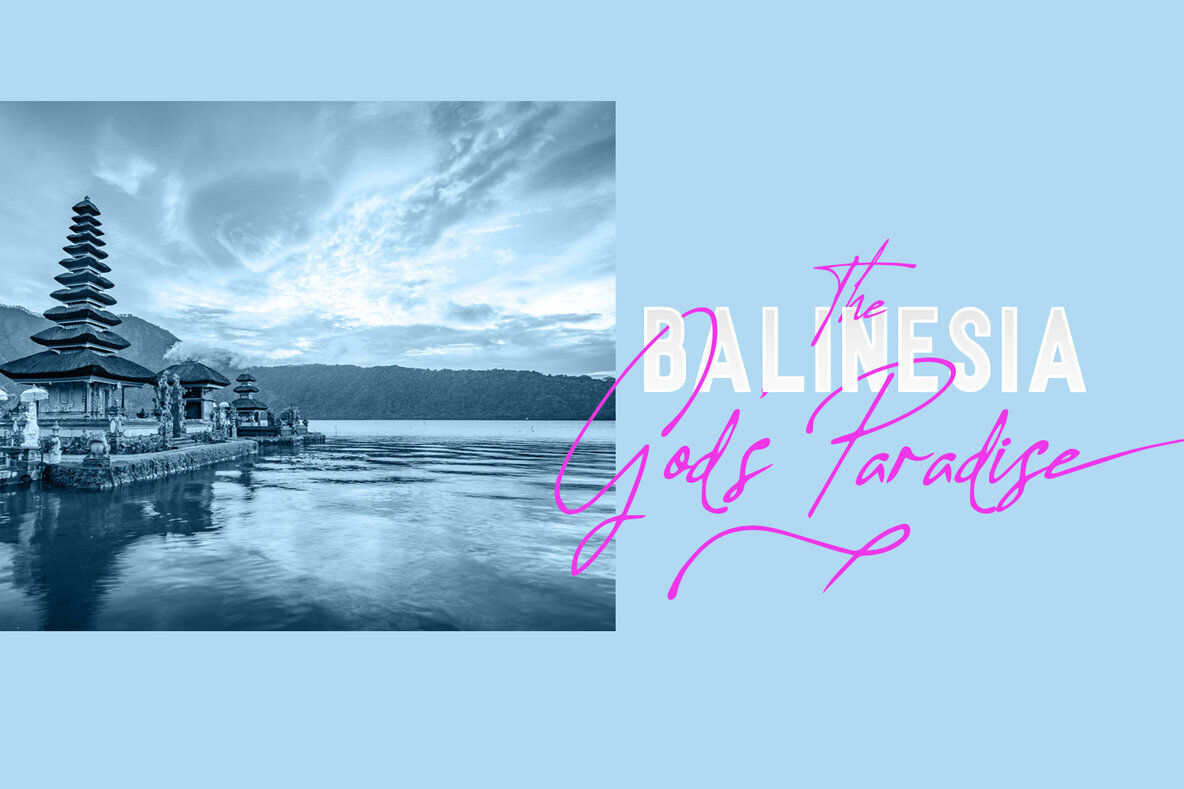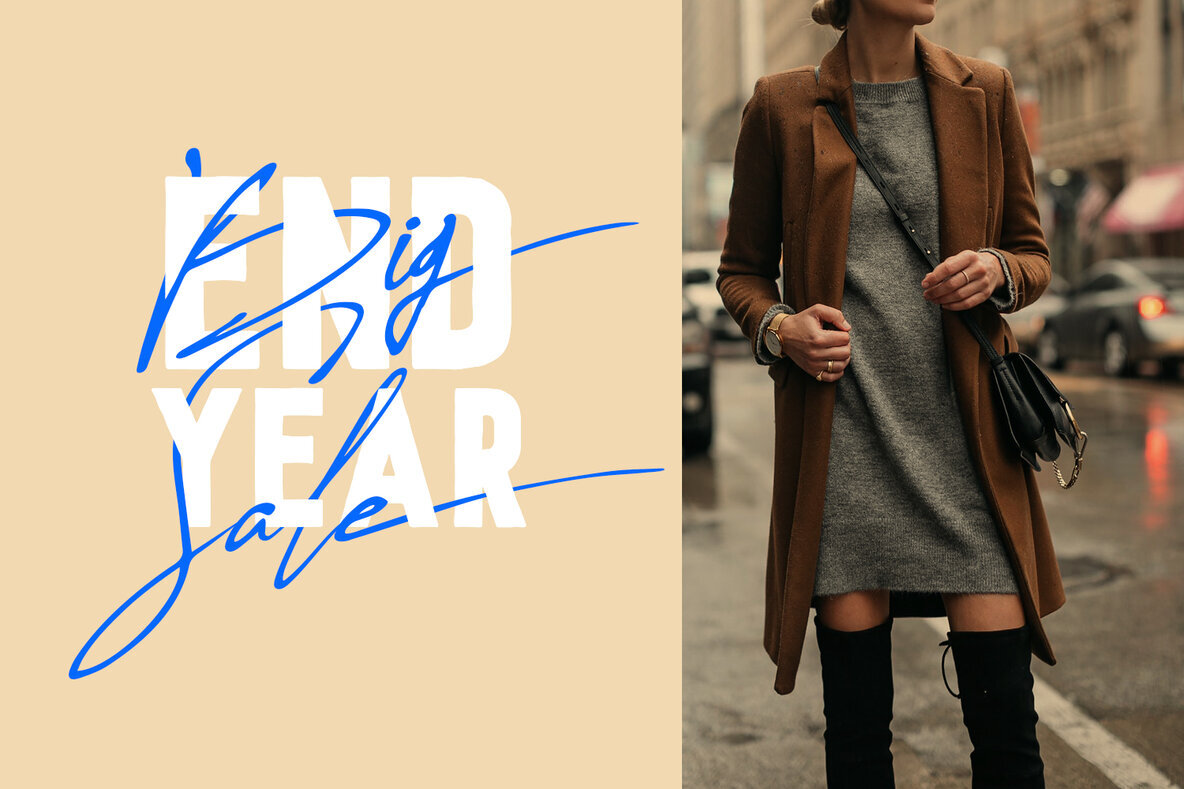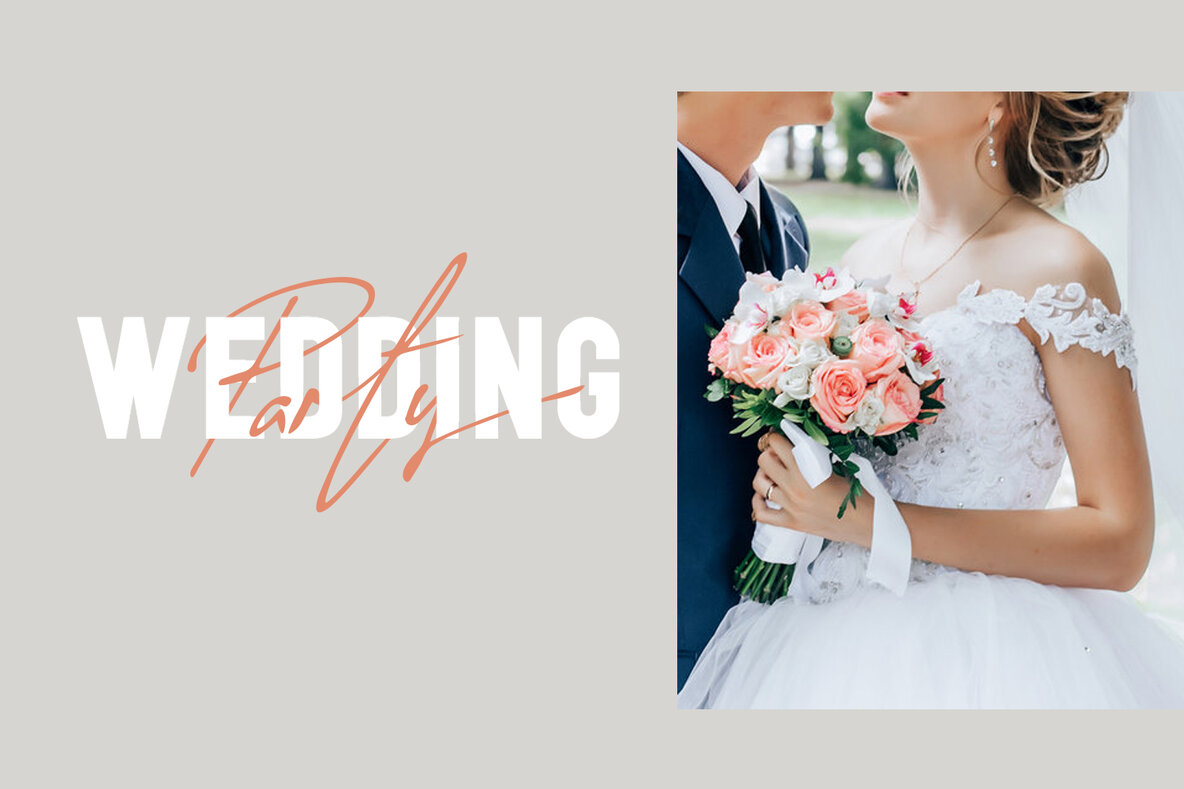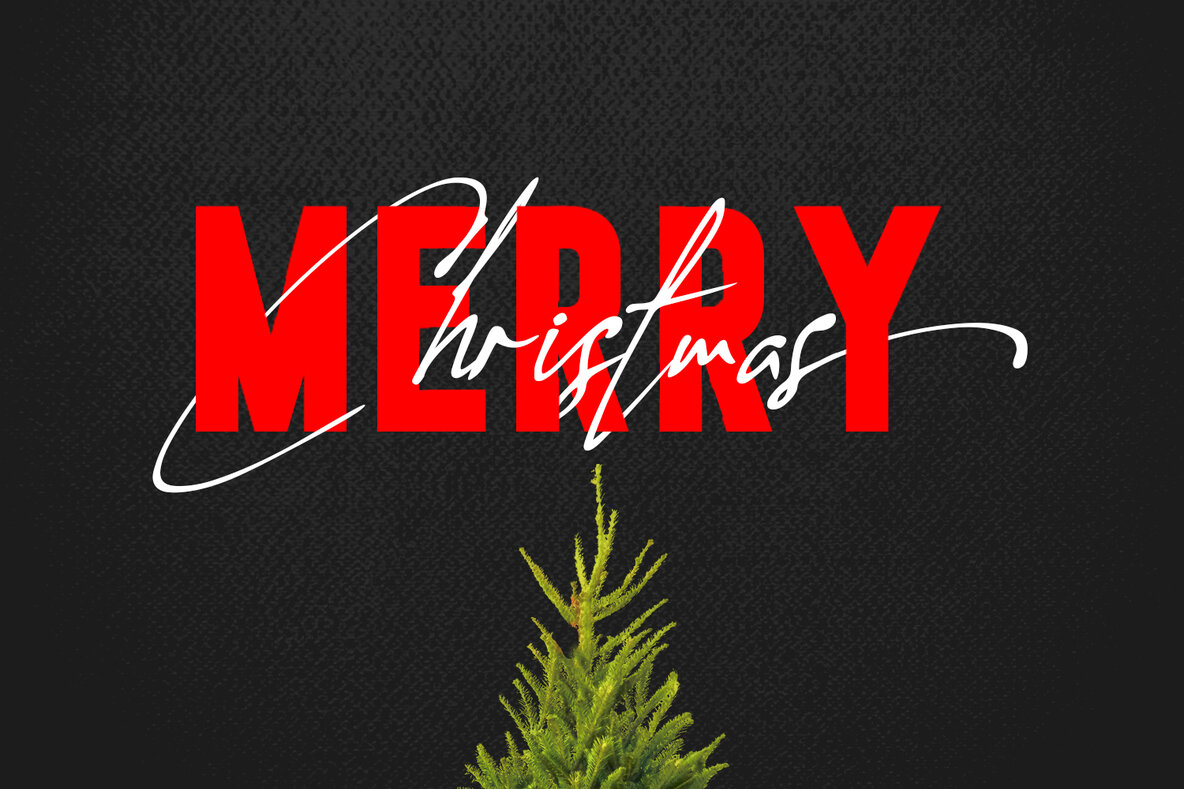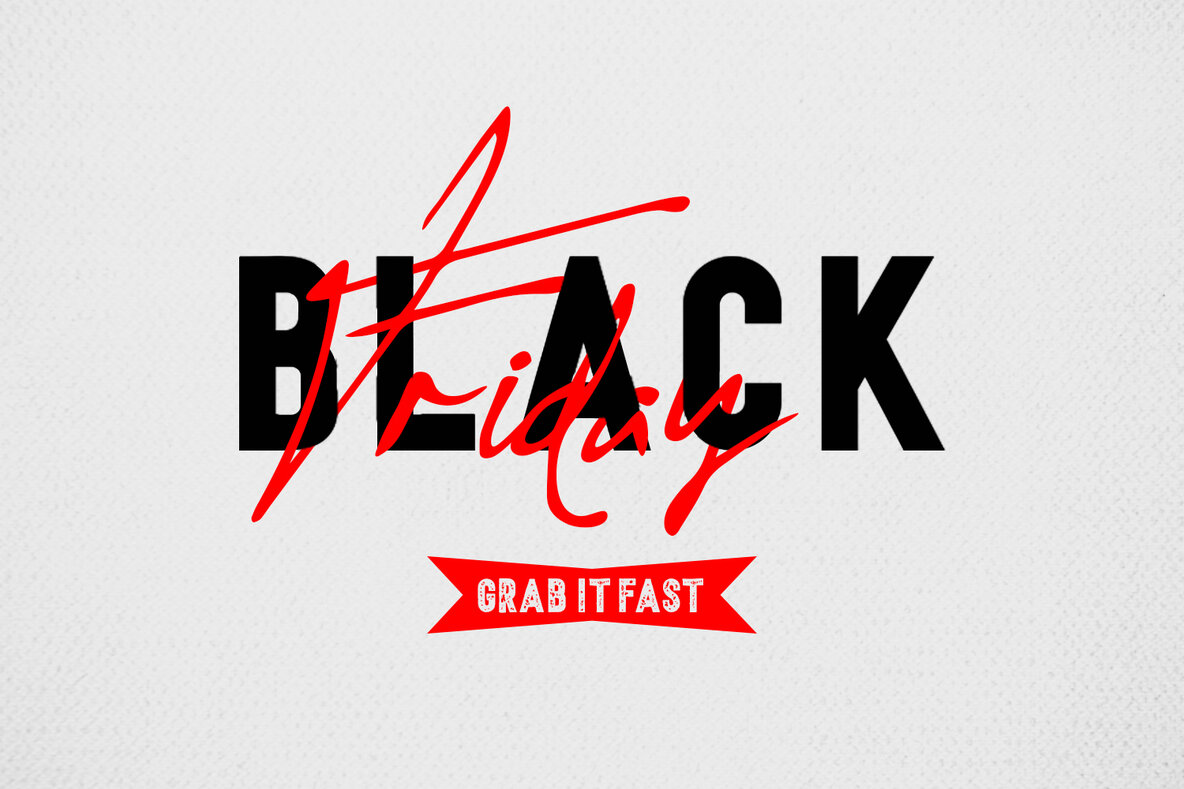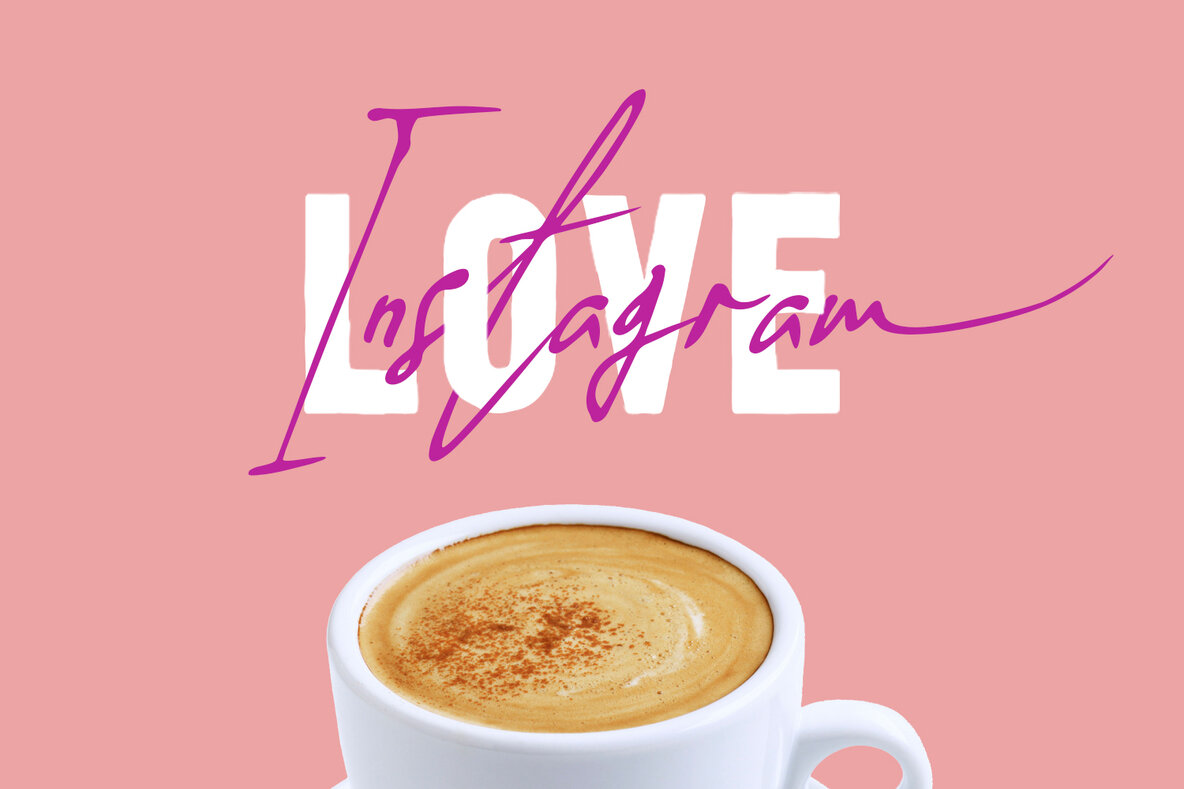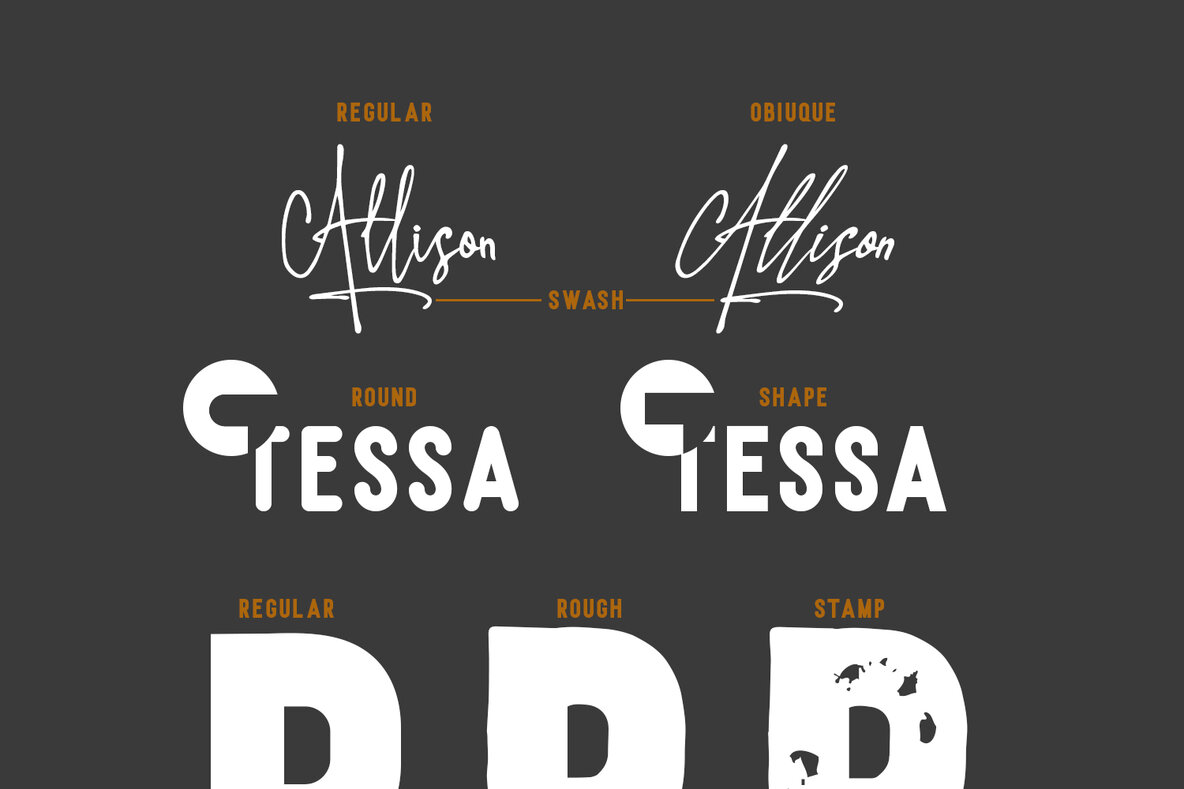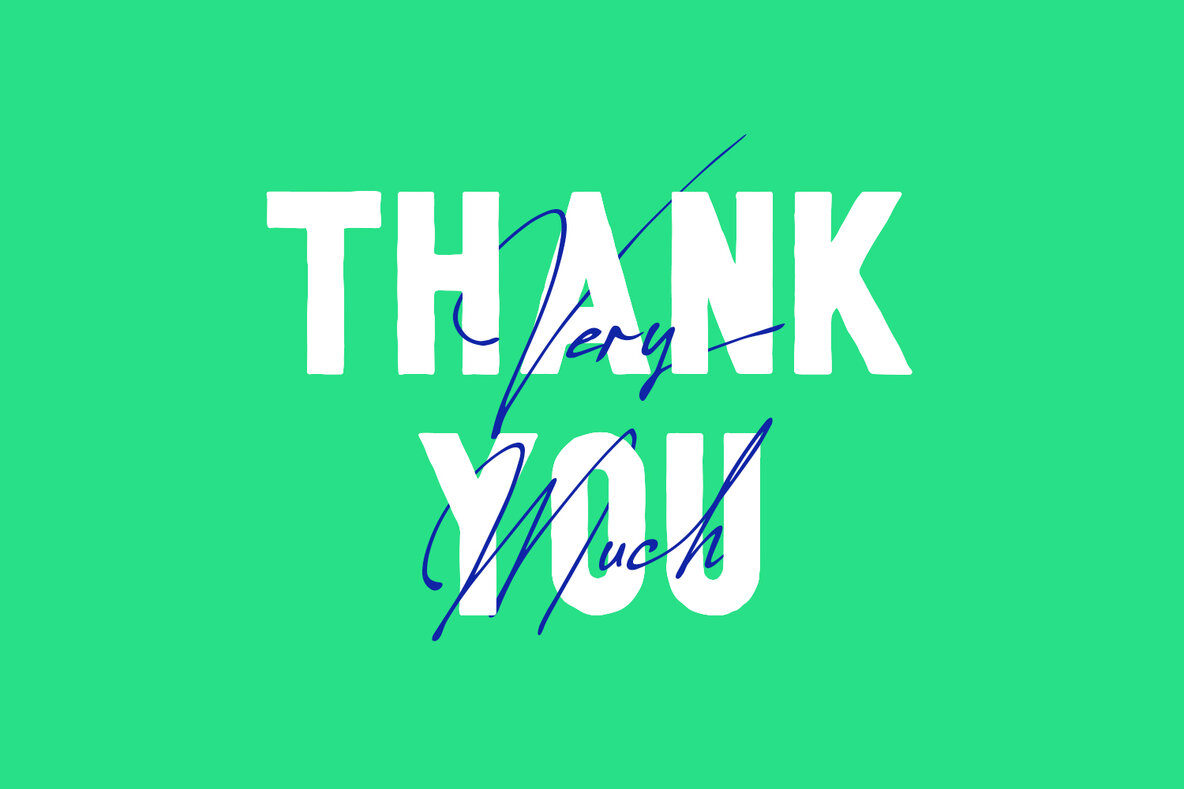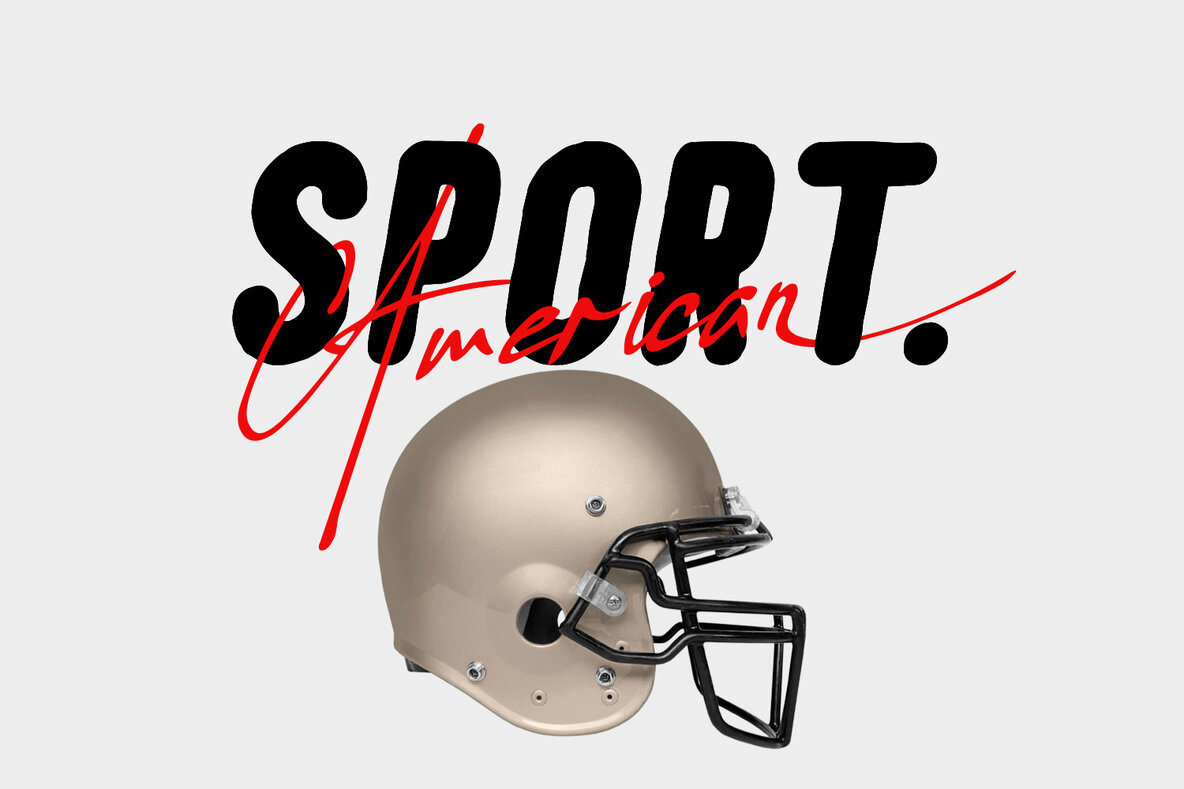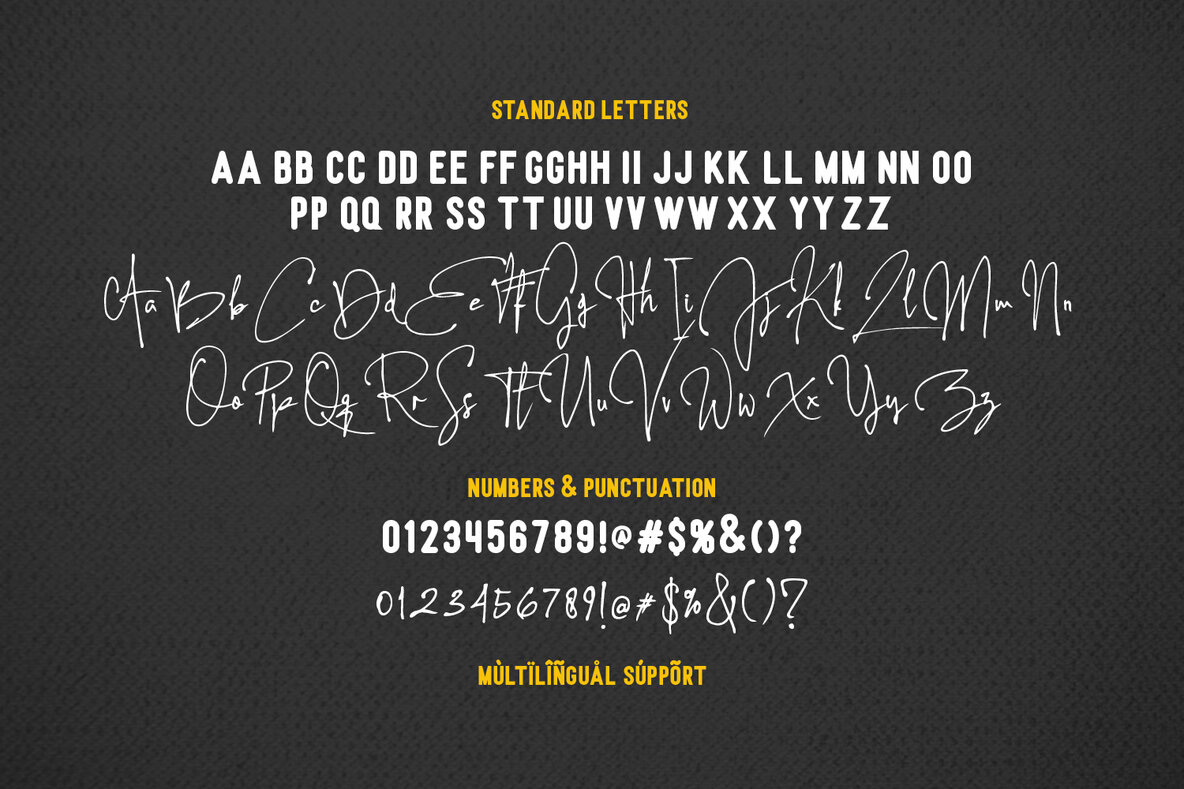
Allison Tessa Font
Allison Tessa
Allison Tessa Regular
Allison Tessa Oblique
Allison Tessa Rough
Allison Tessa Stamp
Allison Tessa swash
Allison Tessa offers a beautiful blend of signature and sans serif styles, making it a perfect choice for a wide range of design projects. With three distinct variations—regular, rough, and stamp—this font adapts effortlessly to your creative needs.Allison Tessa: Versatile Signature and Sans Serif Font